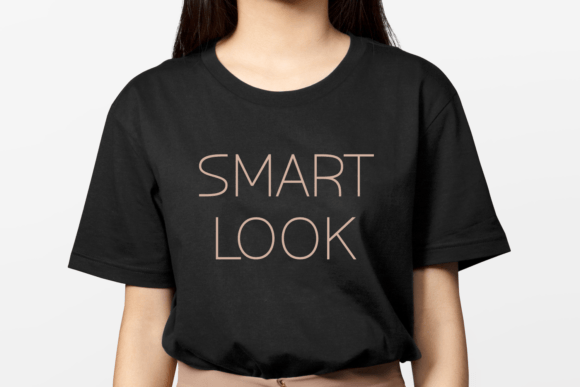
Nothing Broken Font
Introducing Nothing Broken is a new Sans Serif font. Displaying a minimalist yet engaging aesthetic, this clean font is a perfect choice for a range of different purposes, especially where a cultured and elegant style is desired. Its simplicity makes it an ideal school or children’s font, while its polished essence lets it stand out in books or magazines.
Whether you’re working on brand identity, crafting a personal invitation or sewing a message onto a t-shirt, this distinctive handwriting-style font carries a delicate finesse. It’s a thin font that speaks volumes, perfect for injecting personality into valentine cards and inspirational quotes. But that’s not all. In an increasingly digital world, ‘Nothing Broken’ stands out as a prime font for social media content and presentations, encapsulating messages with a genuine feel and compelling allure.